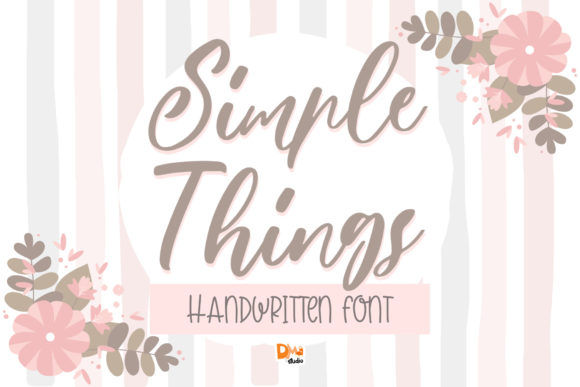
**Simple Things Font: The Ultimate Expression of Grace and Elegance**
Immerse yourself in the world of Simple Things, a captivating script font handcrafted by the renowned designer, dmletter31. This meticulously crafted font exudes a casual, yet elegant charm, inviting you to explore its endless possibilities.
With its free-flowing strokes and beautiful curves, Simple Things brings a touch of sophistication and charm to any creative project. Its handwritten nature adds a personal feel to your designs, evoking a sense of heartfelt emotion and authenticity.
**Effortless Versatility: One Font, Endless Creations**
The true beauty of Simple Things lies in its versatility. With just a single font, you can create a myriad of captivating designs that will leave a lasting impression. Effortlessly design logos, branding materials, and wedding invitations that speak volumes. Craft social media posts and marketing materials that exude elegance and grace. The possibilities are limitless.
**Add a Personal Touch to Your Creative Journey**
Incorporate Simple Things into your designs and witness the transformation it brings. Its ability to convey warmth and emotion is truly remarkable. Whether you're creating a logo for a new business venture, designing marketing materials for a special event, or simply adding a personal touch to your social media presence, Simple Things has got you covered.
**A Timeless Treasure: A Font That Never Ages**
Unlike fleeting trends, Simple Things offers a timeless appeal that transcends generations. Its classic, yet contemporary style ensures that your designs remain relevant and captivating for years to come. Invest in a font that will accompany you throughout your creative journey, adapting effortlessly to the ever-changing demands of the digital world.
**Experience the Simplicity of Excellence**
Simple Things is more than just a font; it's an invitation to unleash your creativity and create designs that truly matter. Its ability to evoke emotions and convey heartfelt messages makes it the perfect choice for designers, marketers, and content creators seeking to leave a lasting impact.